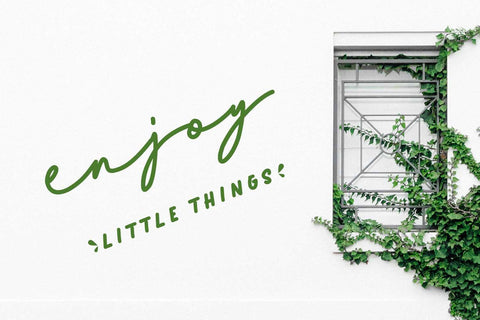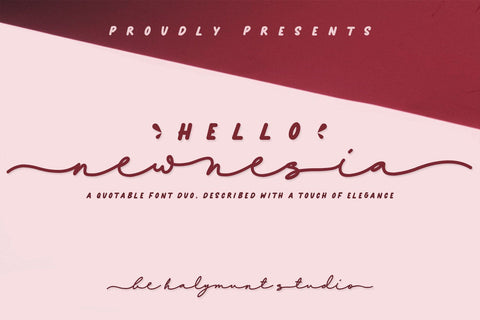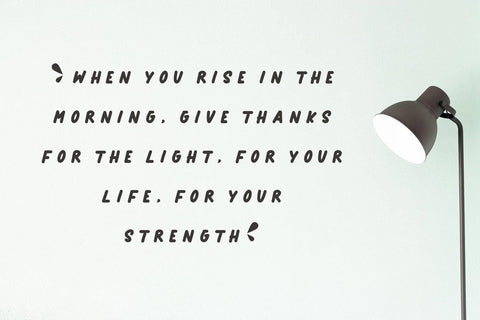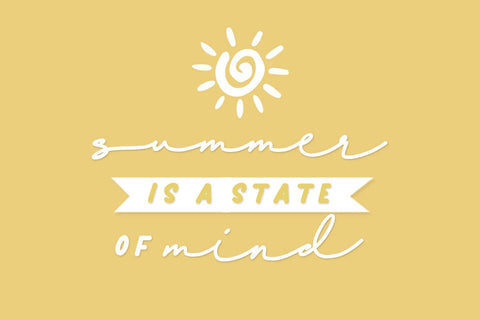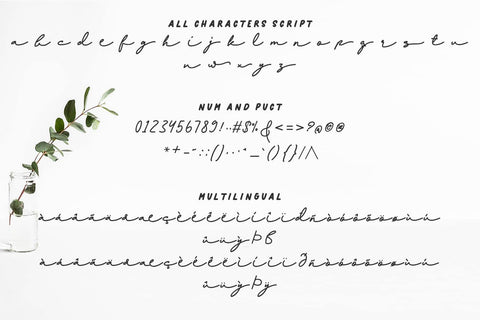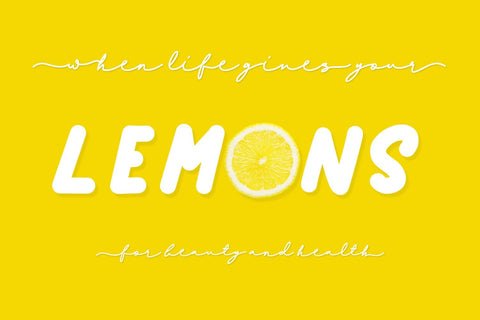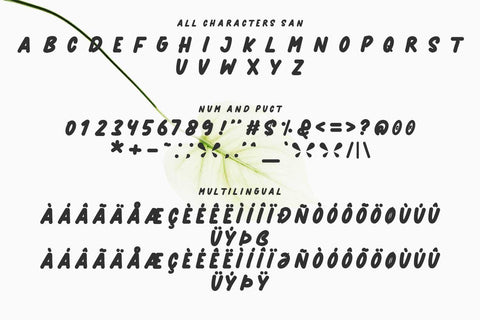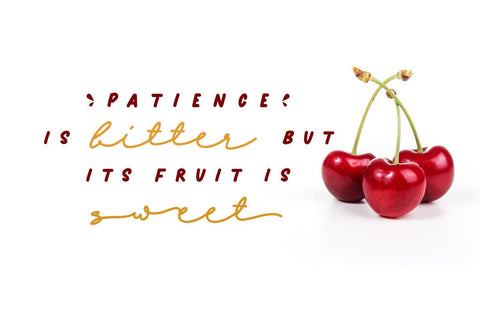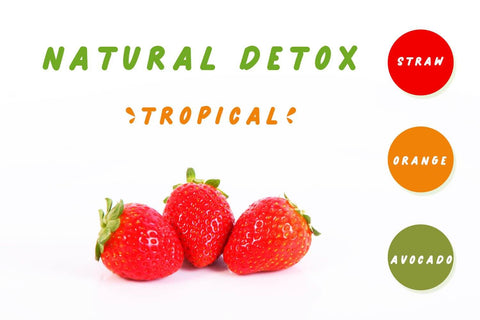
Newnesia | A Quotable Font Duo
Newnesia font is a match made in heaven! It perfectly combines a beautiful script with an elegant sans serif. These styles are ready to be used together and give your designs a modern and unique look!